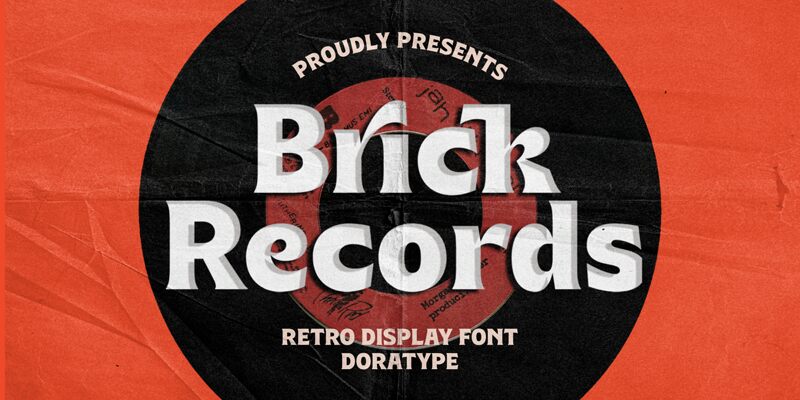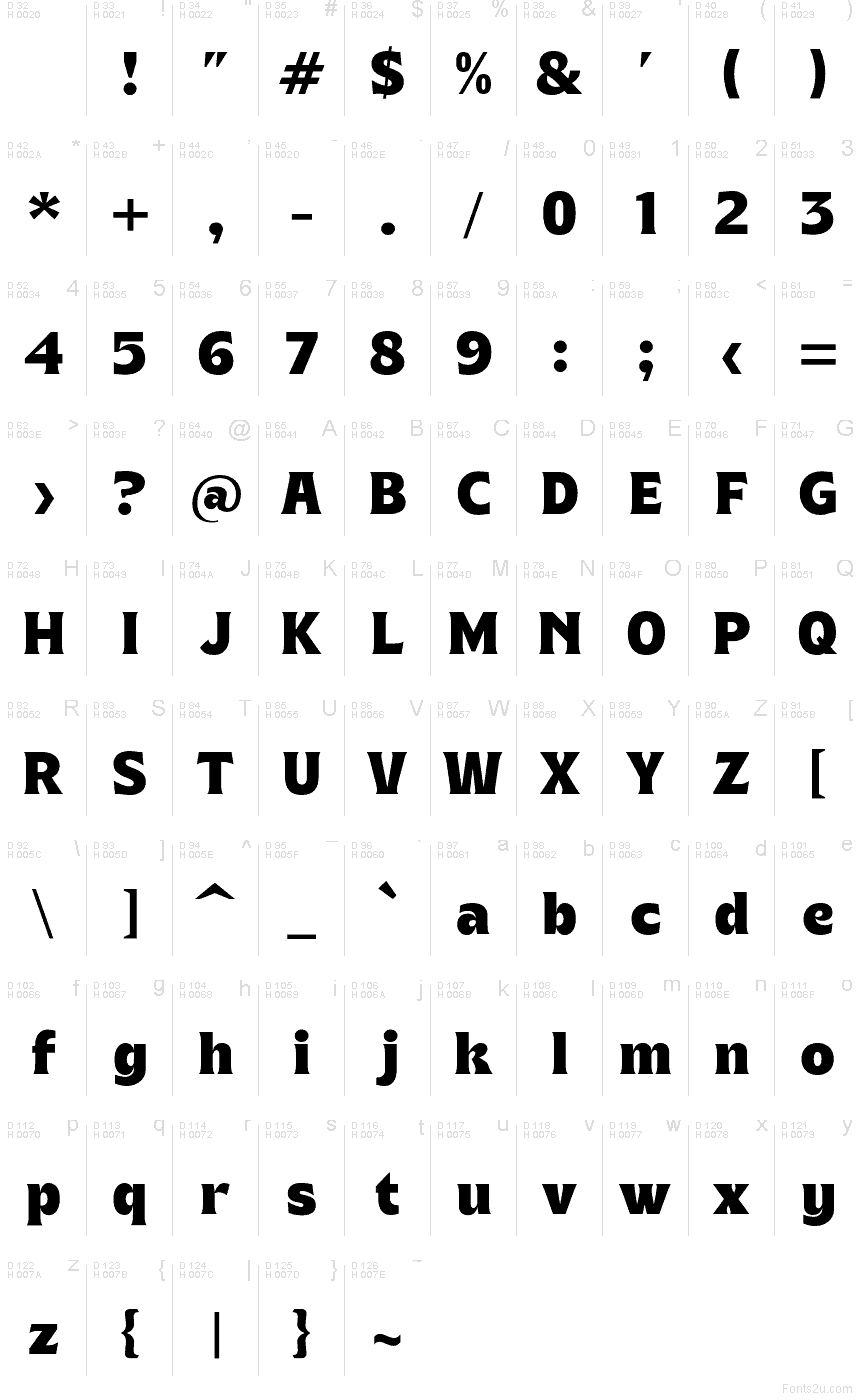
Brick Records Regular
Brick Records font by Dora Typefoundry is a free serif font with big, blocky curves and a satisfying, vinyl-era heft. Its scooped counters and rounded slabs feel carved and inked, like a classic record-store sign pressed into paper—bold without getting brittle.
Using Brick Records, you’ll get instant punch on album covers, music posters, band merch, retro packaging, podcast artwork, event flyers, and punchy social headers. This free font likes generous tracking and large sizes where its chunky rhythm can breathe; try pairing it with a clean grotesk sans for captions and credits to keep the layout sharp.